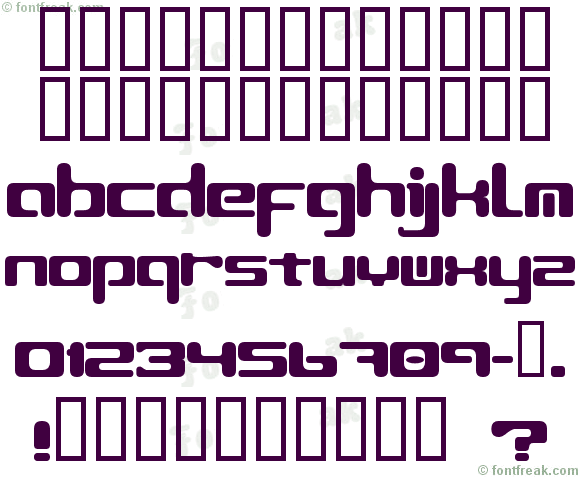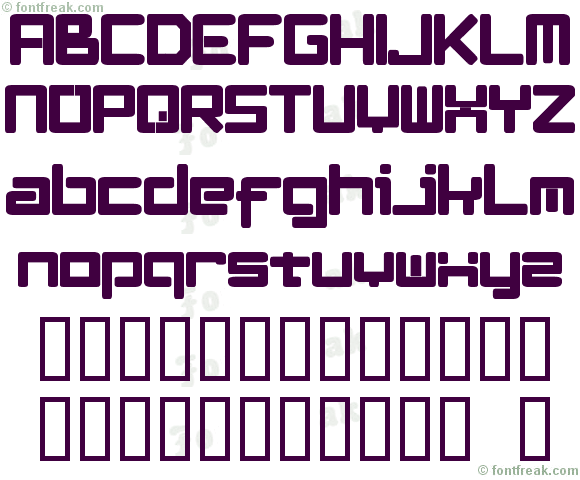
About LeftOvers II
LeftOvers II by 2theleft Typefaces is a distinctive display font that captures attention with its playful and modern aesthetic. This font belongs to the sans-serif category, characterized by its clean lines and bold presence. The stroke weight is notably thick and robust, providing a sense of strength while maintaining a friendly vibe. The contrast within the letterforms is minimal, offering a cohesive appearance that enhances readability. The generous spacing between characters adds a touch of elegance, making it suitable for various applications.
This versatile font is ideal for several creative projects. It shines in wedding invitations, where its unique style can evoke a sense of joy and celebration. LeftOvers II also works exceptionally well for movie posters, capturing the audience's attention with its boldness and modern flair. For restaurant menus, this font brings a contemporary touch, making dish descriptions pop and inviting patrons to explore the offerings. Additionally, small business owners looking to create eye-catching marketing materials will find this font a perfect choice for branding elements, flyers, or promotional content.
What sets LeftOvers II apart is its ability to blend a modern aesthetic with a playful charm, making it a standout choice in the realm of display fonts. Its unique character shapes invite creativity, allowing users to express their individuality while ensuring clarity in communication. For anyone seeking a memorable typeface, the LeftOvers II font free download is an opportunity not to be missed.